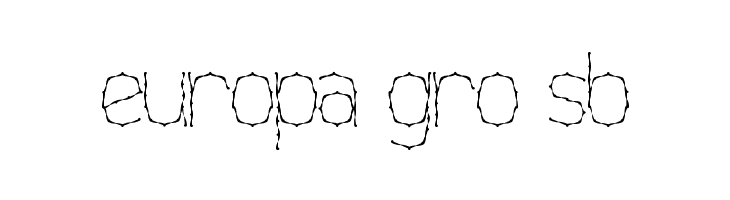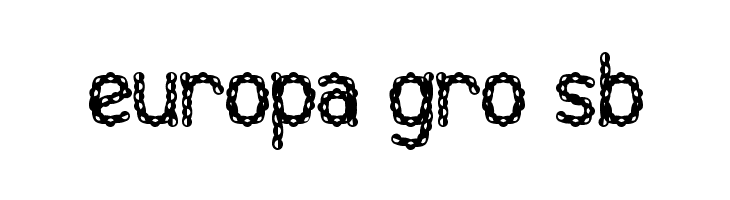
Clerica Medium Font
Paul Lloyd Fonts
A decorative serif font with calligraphic flourishes and artistic lowercase letters.
Argocksaz Bold_viper78 Font
Vlad Viperov
A playful, rounded font with consistent stroke width and smooth curves.
Markofontina Font
A classic serif font with elegant serifs and medium contrast, suitable for formal and creative uses.
Argocksaz_viper78 1KG=K9 Font
Vlad Viperov
A modern, sleek font with elongated, narrow characters and a minimalist aesthetic.
Tetraclericton Font
A decorative font with intertwining lines and geometric shapes.
Injancromvela222 Font
A decorative font with a chain-like, interconnected circular design.
Nexarumpelstil Font
A decorative font with a twisted, vine-like appearance and jagged lines.
Repivmanusc Font
A playful, handwritten font with a casual and dynamic style.
Decorissimant_viper78 Font
A decorative font using geometric shapes to create playful and bold characters.
Decor viper78_8_august_2012 Font
A decorative font made of star and circle shapes, offering a playful and unique style.
Bymberangiykas_Full_Big Font
Font by Vlad Viperov
A playful, wavy font with zigzag outlines and dynamic character shapes.
Gramoclericton Font
A bold, angular font with a modern and dynamic style.
Rumpelstilnexz Font
A whimsical, hand-drawn font with wavy outlines and playful character.
Arbycksazjan Font
Font by Vlad Viperov
A decorative, multi-line font with a bold, textured appearance.
Oxygetrompal Medium Font
Vlad Viperov
A playful, hand-drawn font with a whimsical and irregular style.
Arial_ver_viper78_7_august_2012 e??O??? Font
Vlad Viperov
A playful font composed of star and circle shapes, perfect for whimsical designs.
Mayuragifkas Italic Font
Vlad Viperov
A playful, blob-like font with a whimsical and organic style.
Injancromvela150 Font
Vlad Viperov
A playful, chain-like decorative font with interconnected circular patterns.
Mayuragifkas222 Font
Vlad Viperov
A playful, bubble-like font with rounded edges and a whimsical style.
Mayuragifkas150 Font